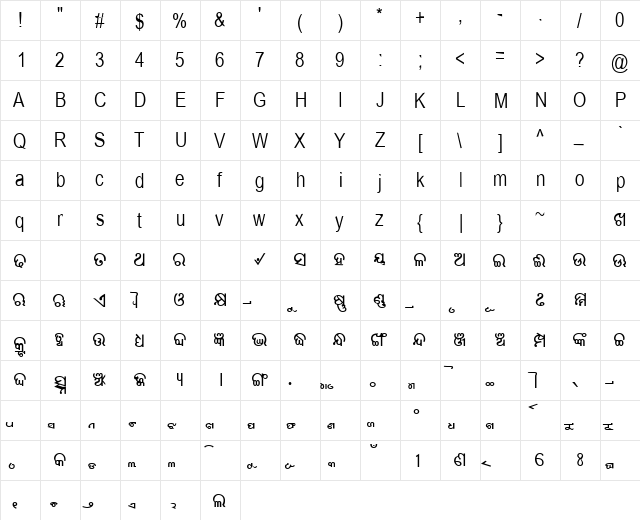
AkrutiOfficeSubhadra Bold Font Preview
AkrutiOfficeSubhadra Bold
Design Context for AkrutiOfficeSubhadra Typeface
AkrutiOfficeSubhadra offers clean, dependable letterforms without strong stylistic allegiance, making it a practical choice for designers who need flexibility. The heavy weight commands attention and anchors typographic hierarchies.